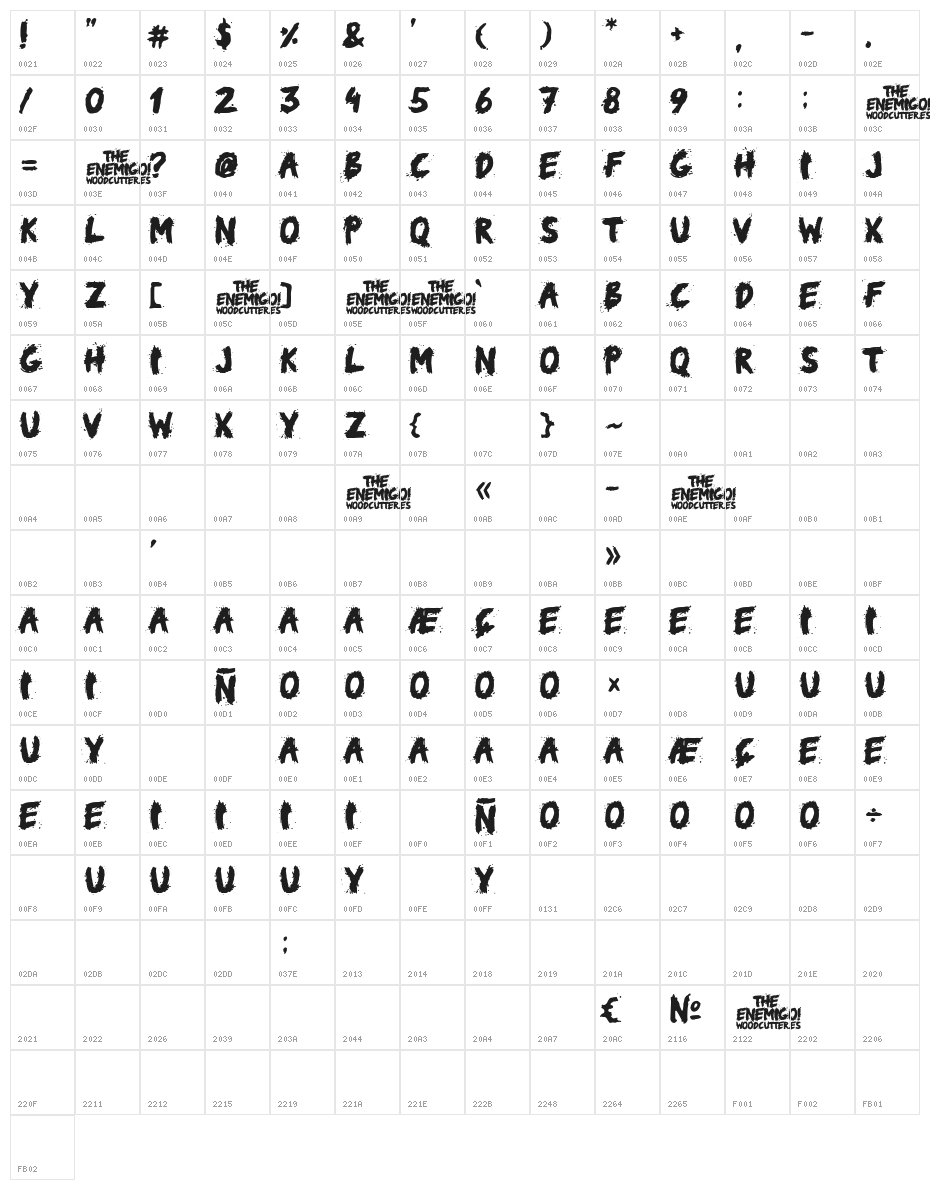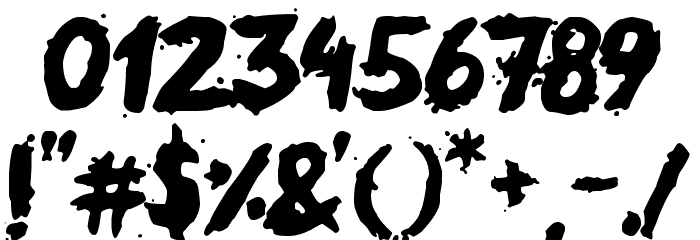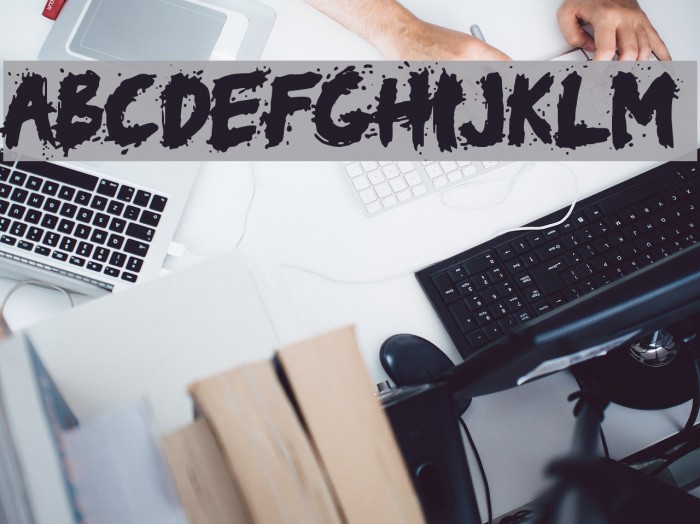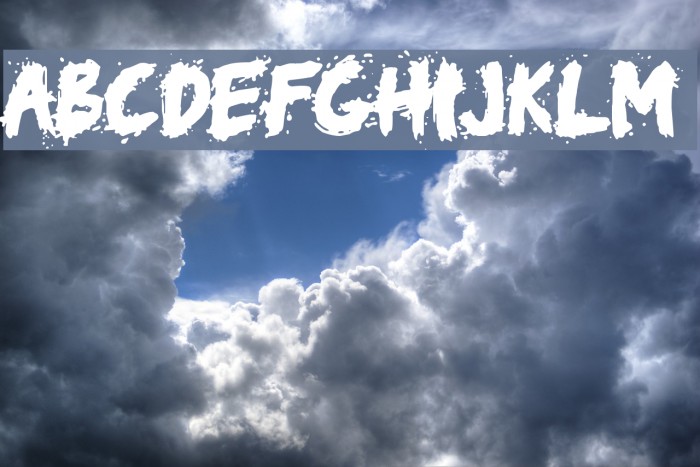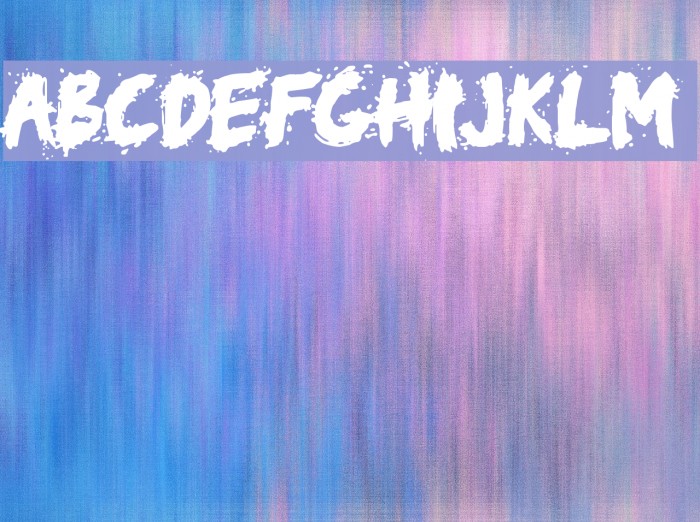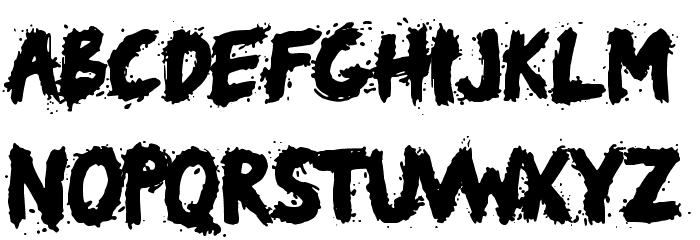
the enemigo Font
the enemigo Description
This font features a bold, grungy style with a distressed texture that gives it a raw and edgy appearance. The characters are irregular and appear as if they have been splattered with ink, creating a dynamic and energetic look. The uppercase and lowercase letters maintain a consistent style, with jagged edges and a hand-painted feel. Numbers and special characters follow the same aesthetic, ensuring a cohesive design throughout. This font is ideal for projects that require a rebellious or urban vibe, making it perfect for music album covers, streetwear branding, or event posters.
| Overall Style | Grunge, Urban, Edgy |
| Proposed Projects | Music album covers, streetwear branding, event posters, graffiti art, skateboarding graphics. |